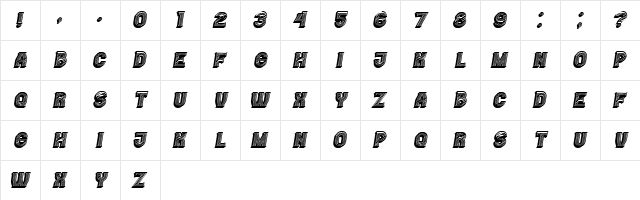
Casino 3D Lines Italic
Design Context for Casino 3D Lines Typeface
Casino 3D Lines is a composed and adaptable typeface that performs quietly and consistently across a wide range of design contexts. Its italic angle brings a sense of urgency and motion to the letterforms.
Pro Tip: Use Casino 3D Lines for emphasis, pull quotes, and subheadings where its slanted energy can add rhythm to the layout.